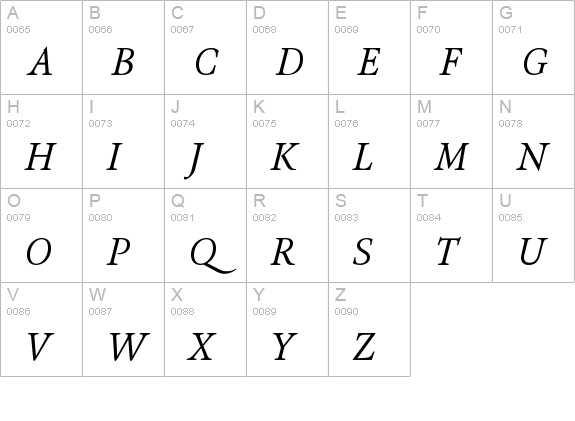
RenardNo3-Italic is a distinctive, italic variant in the RenardNo3 typeface family \xE2\x80\x94 well suited to design and typography projects.
RenardNo3-Italic is a stunning font that effortlessly blends elegance and sophistication. Its sleek and slanted design adds a touch of modernity, making it perfect for a wide range of design projects. This font exudes a sense of confidence and charm, making it ideal for luxury branding, editorial design, and much more. With its delicate curves and clean lines, RenardNo3-Italic captures attention and creates a captivating visual experience. Each letter is carefully crafted to create a harmonious balance between form and function. Whether used for headlines, subheadings, or body text, this font brings a unique and captivating presence to any composition. One of the most remarkable features of RenardNo3-Italic is that it is available for free download at FontsMarket.com. This means that designers, creatives, and enthusiasts can easily access this beautiful font and incorporate it into their projects without any barriers. The freedom to utilize this font in both personal and commercial endeavors is a testament to its versatility and accessibility. RenardNo3-Italic is a font that truly stands out from the crowd. Its distinctive style and sophisticated aura make it a valuable addition to any designer's toolkit. Whether used for print or digital media, this font will elevate any project to new heights, leaving a lasting impression on viewers and readers alike. Experience the elegance and freedom of RenardNo3-Italic by downloading it for free at FontsMarket.com today.